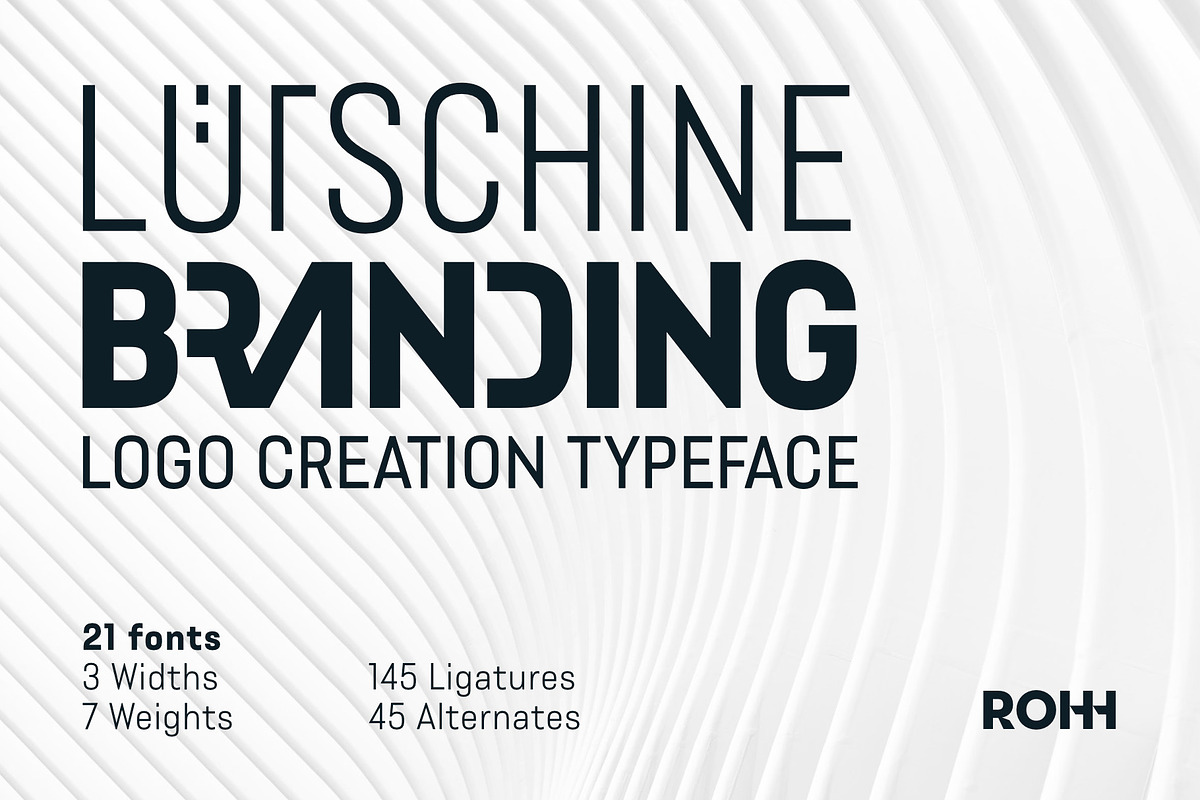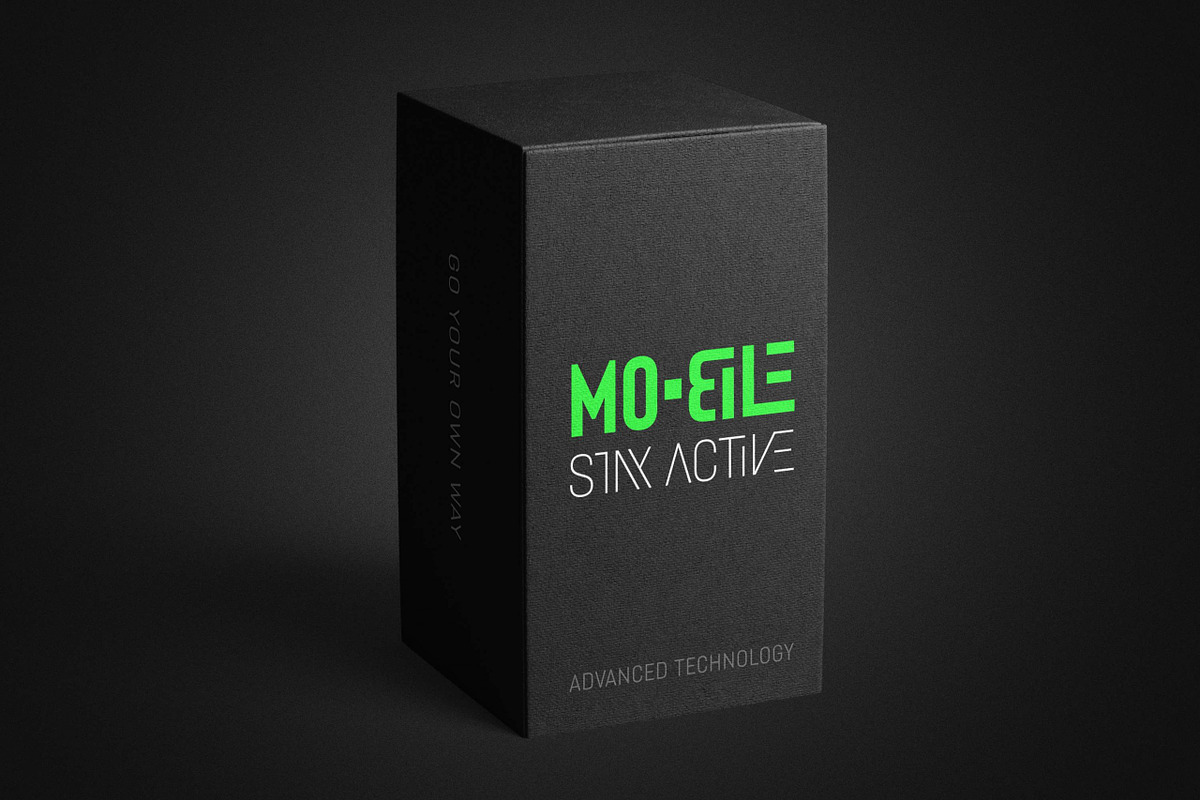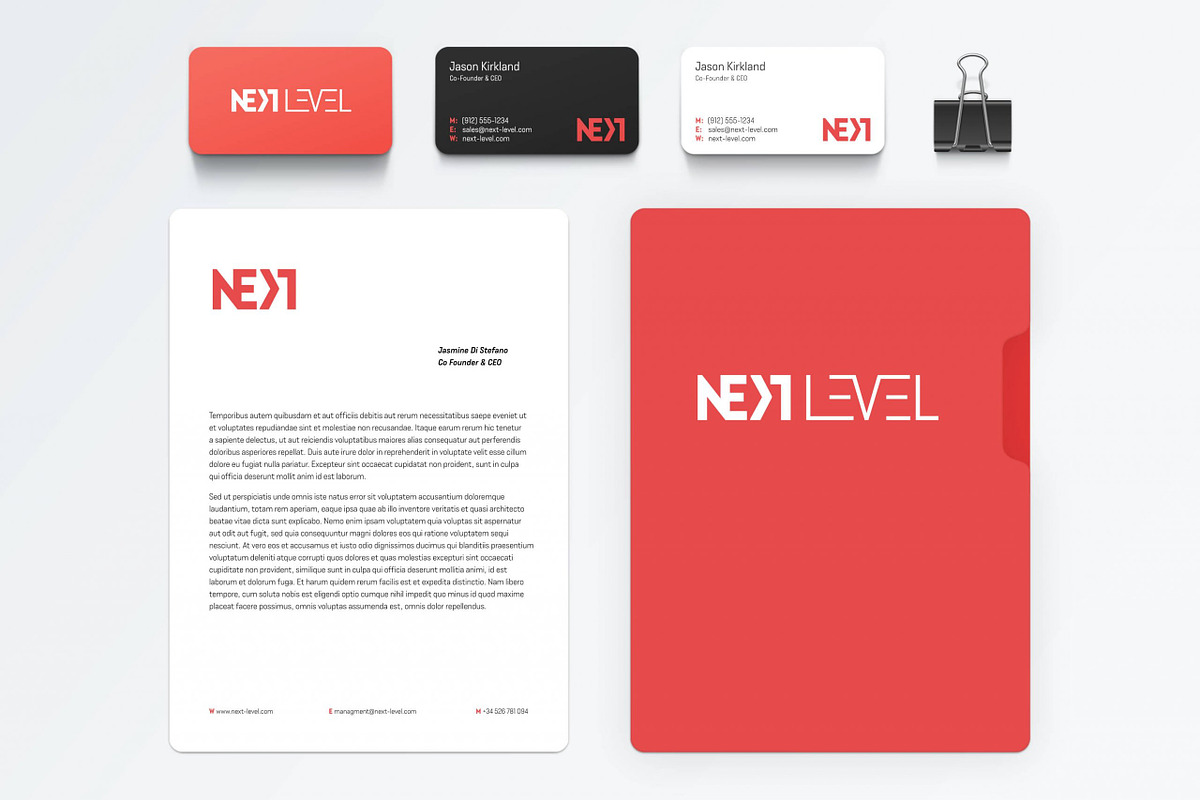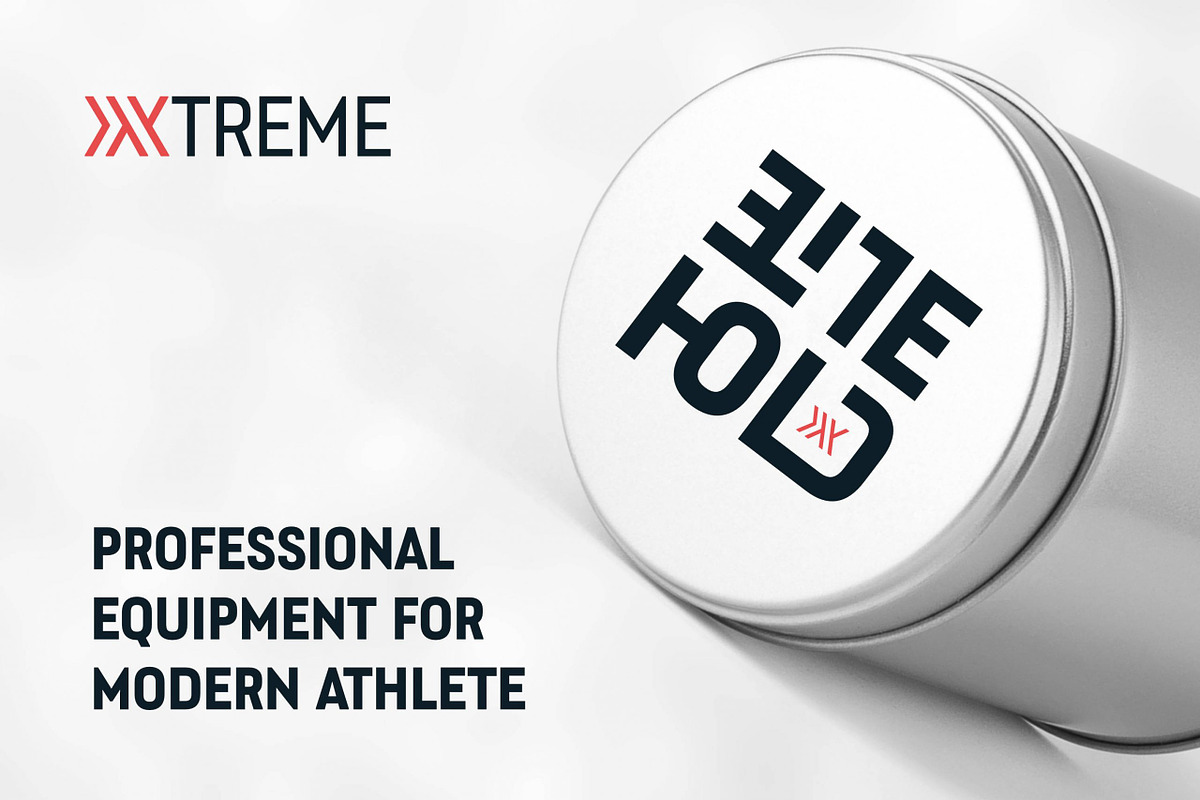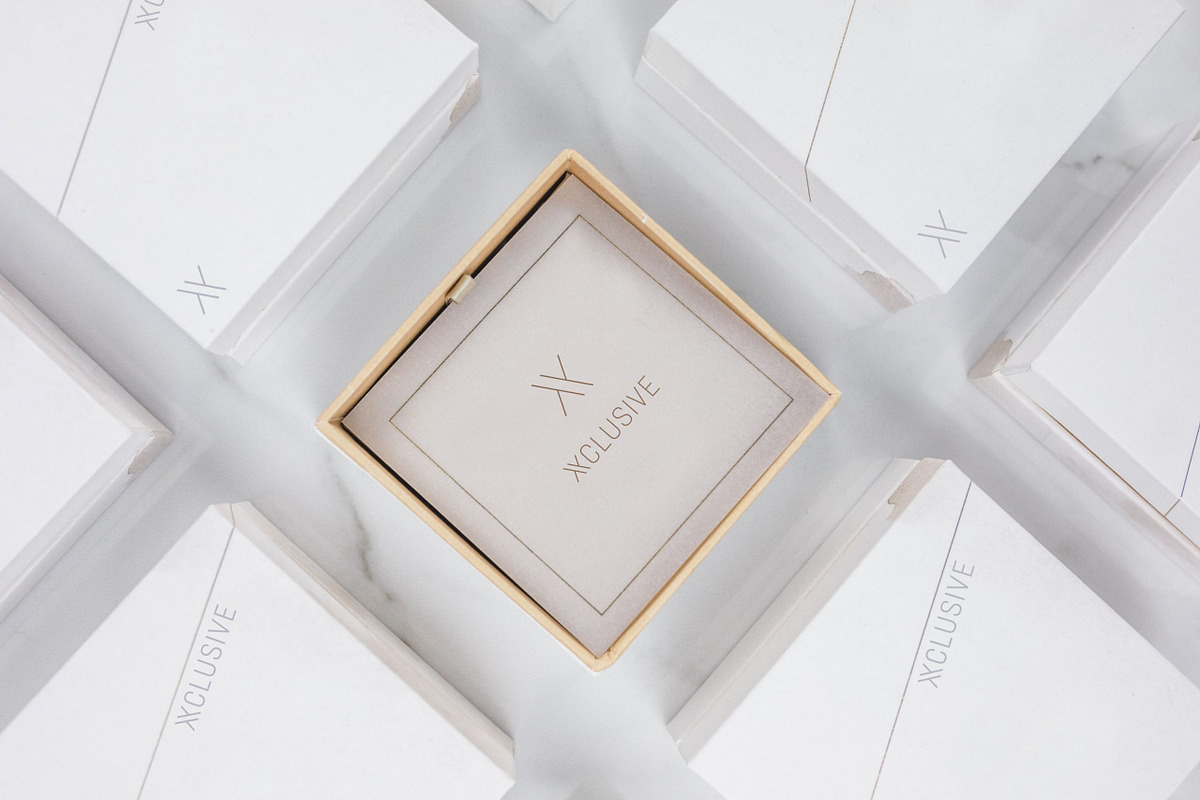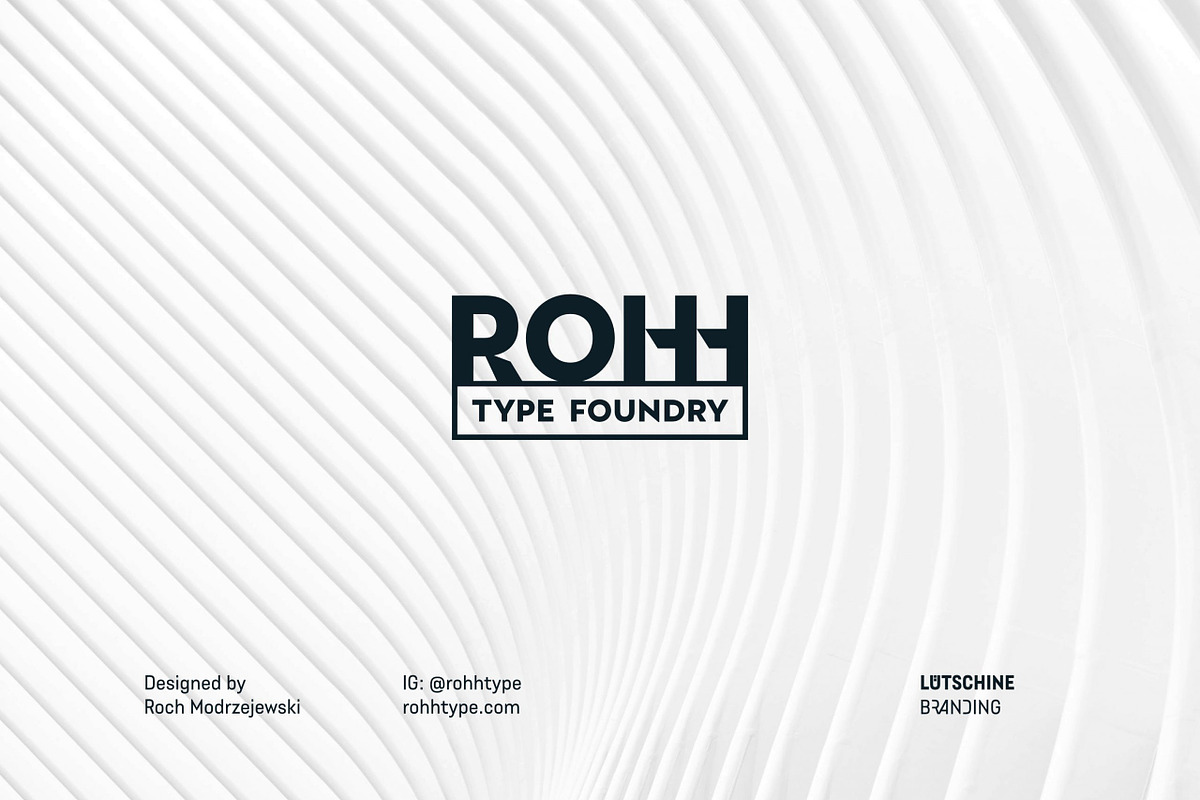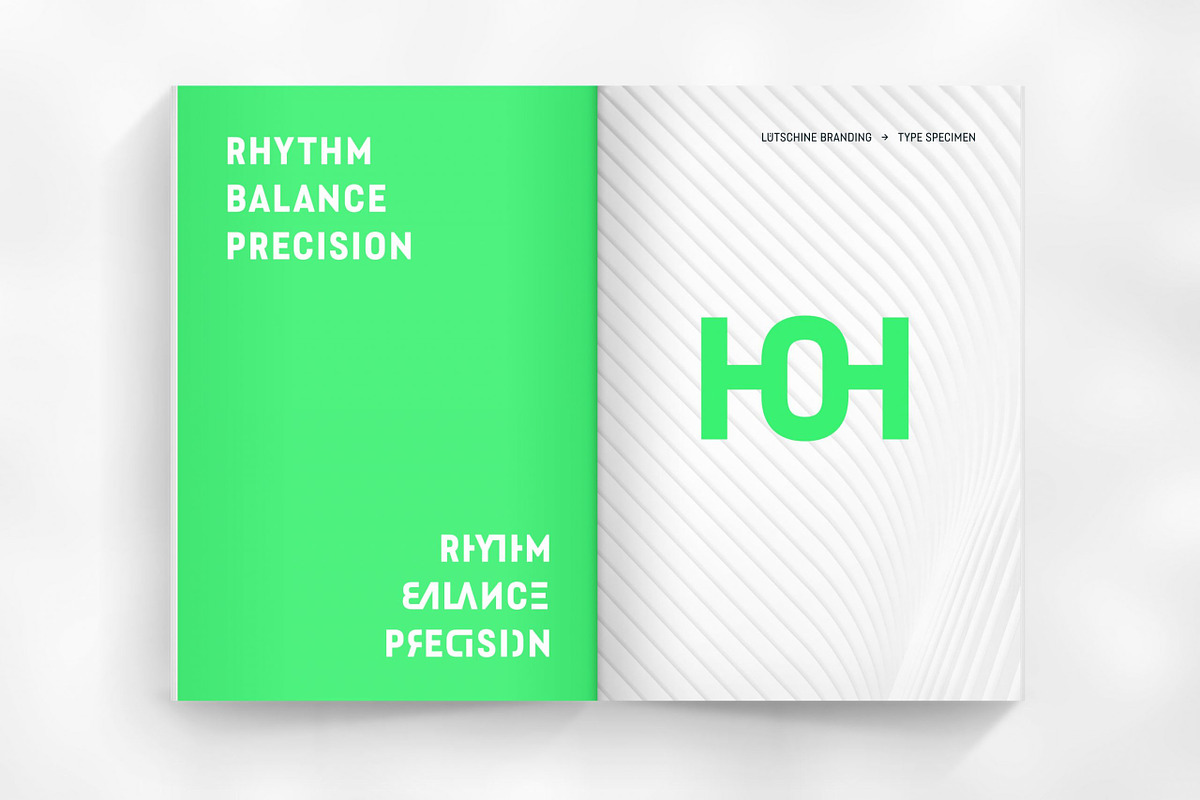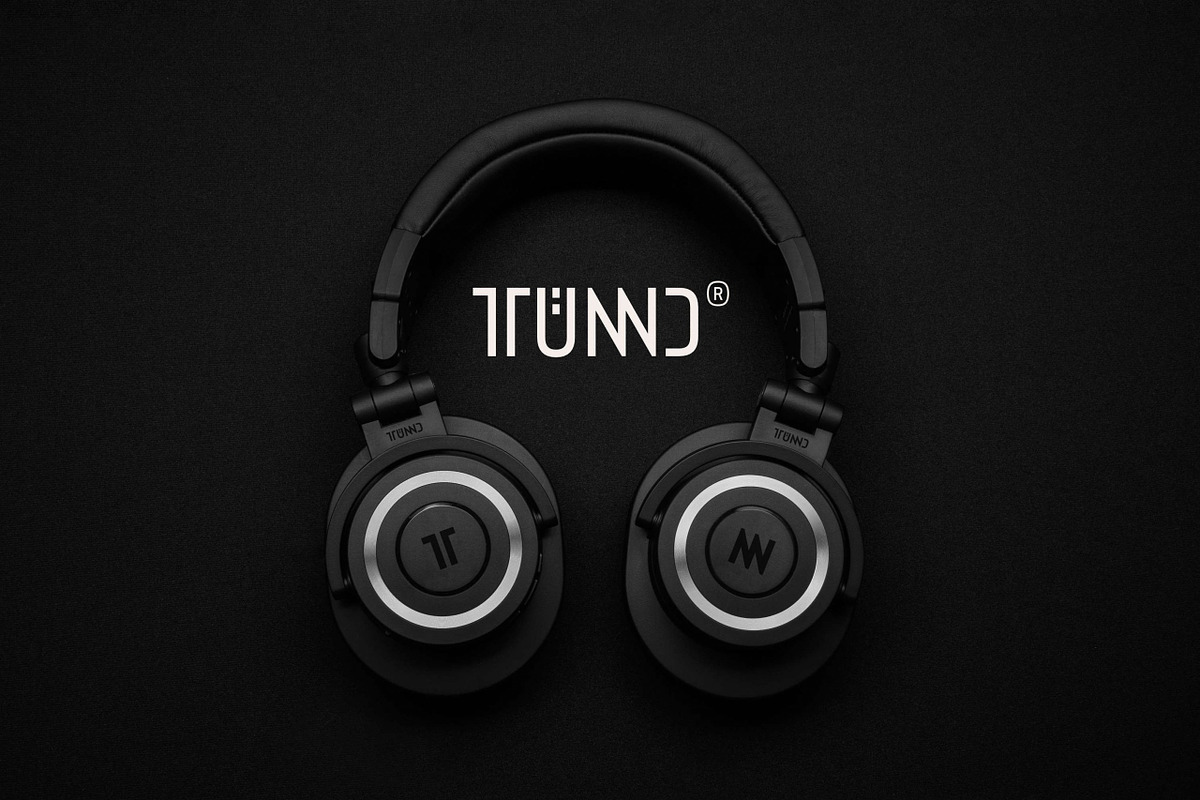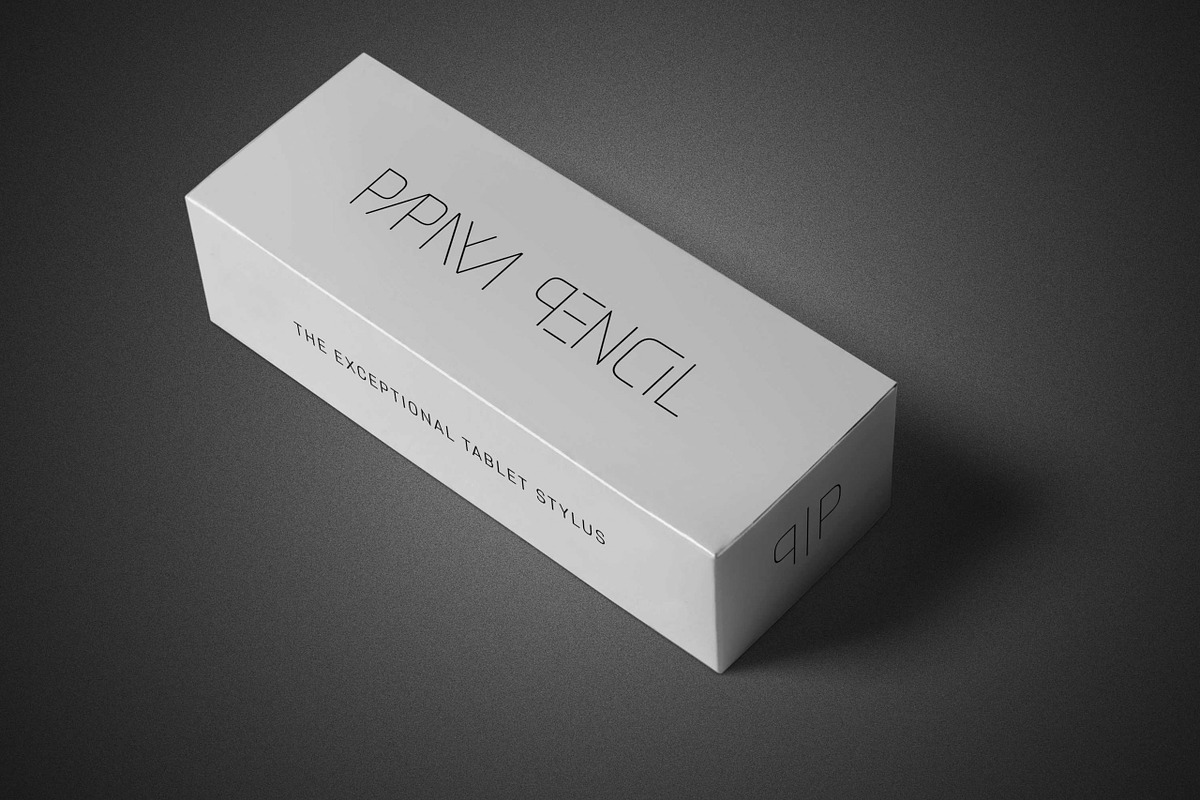
Lütschine Branding Creator Typeface
Lütschine Branding – Logo Creator Typeface
Lütschine Branding™ is a versatile and modern logotype creation tool. It is an uppercase family of 21 fonts packed with features like stylistic alternates and tons of discretionary ligatures.
Similarly to its sibling, Montreux Branding™, the family’s purpose is to make the creative process of designing logotype a blast. It has a wide set of OpenType features crafted especially to make your life easier, allowing you to accomplish your projects in less time.
Lütschine Branding has a strong modern and sharp personality, condensed proportions that together with the alternate characters and ligatures give the it a unique powerful look.
The family features a very versatile set of styles and comes with 21 fonts – 3 width variants (Narrow, Condensed, Normal), 7 weights per each width version. That gives great possibilities of adjusting it to your project’s needs.
Lütschine Branding is an extension of Lütschine, a condensed display sans serif crafted as an exclusive product only available here. Both families are a part of a big type system that contains typefaces such as Montreux Sans, Rothorn, Conthey and Conthey Inline. This broad and comprehensive system lets designers create complete large branding solutions covering the needs of all industries.
- 3 widths (Narrow, Condensed, Normal)
- 7 weights (Hairline, Thin, Light, Regular, Medium, Bold, ExtraBold)
- 145 ligatures
- 45 titling alternates